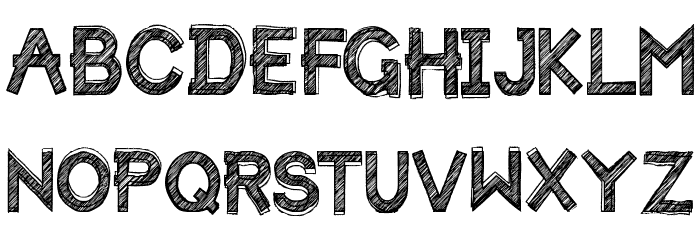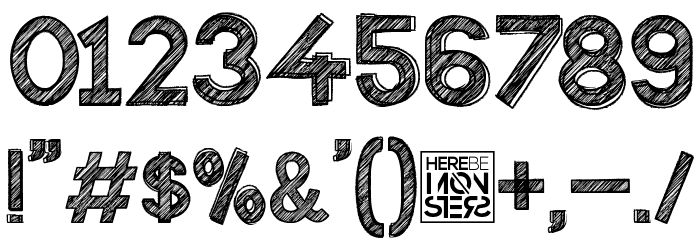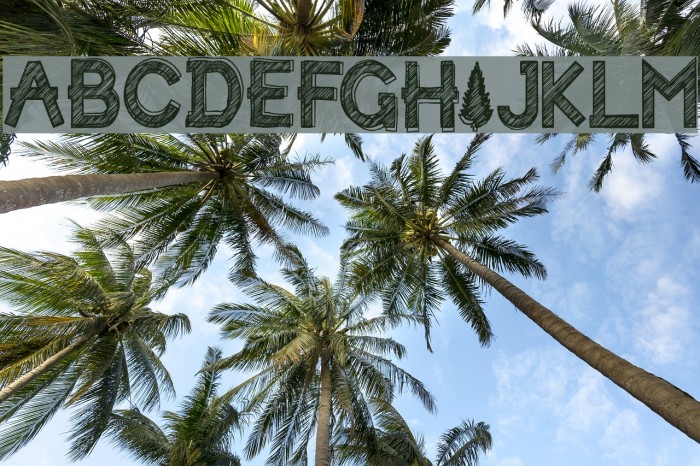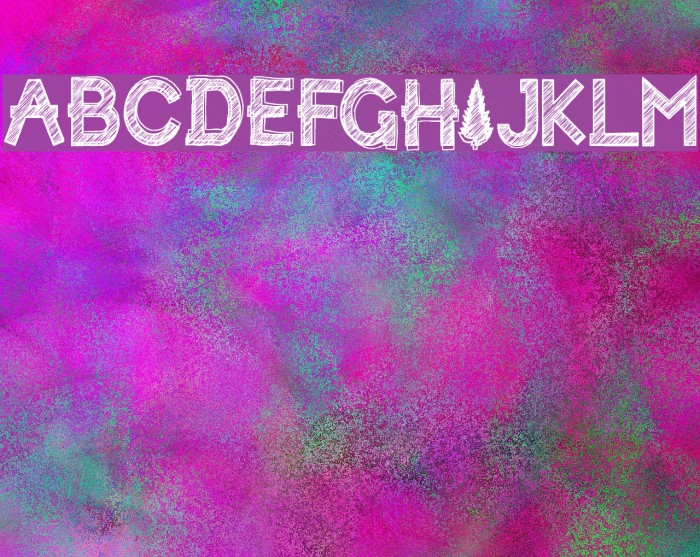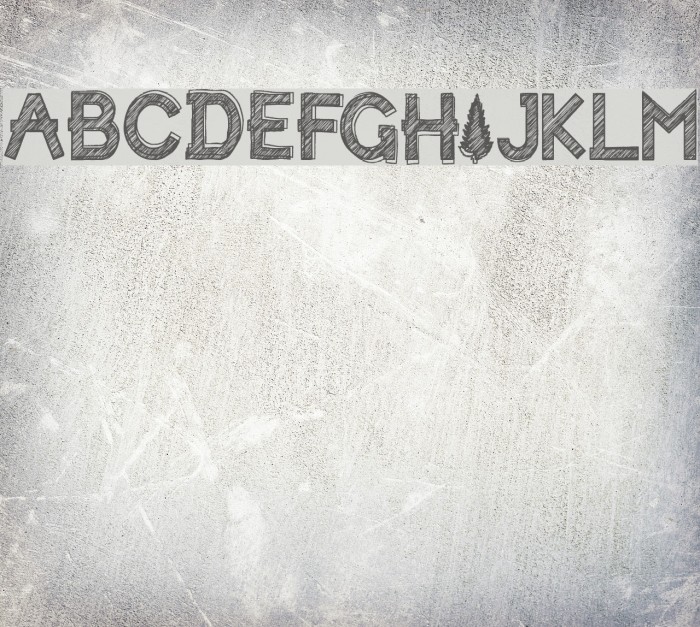
HBM Forista Sketchy Font
This font features a sketchy, hand-drawn style that gives it a playful and artistic appearance. The characters are bold and have a textured, shaded look, reminiscent of pencil sketches. Each letter and number is distinct, with a slightly irregular outline that adds to the handcrafted feel. The uppercase and lowercase letters maintain a consistent style, while the numbers and special characters complement the overall design. This font is ideal for projects that require a creative and informal touch, such as posters, invitations, or artistic branding.
A sketchy, hand-drawn font with a playful and artistic style.
- Proposed Projects: Ideal for creative projects like posters, invitations, and artistic branding.
- Use Case: Headlines, Logos, Artistic projects